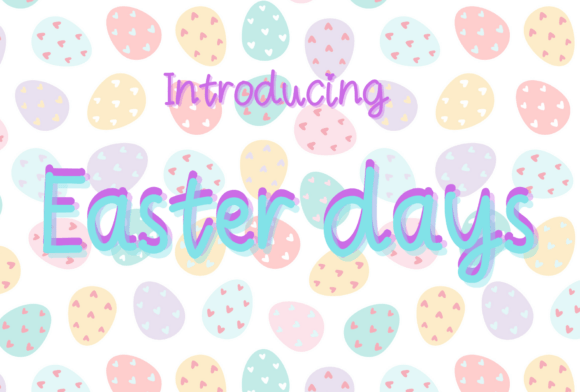
Easter Days Font: The Perfect Handwritten Font for Digital Note-Taking and Design
Easter Days Font is a delightful handwritten font that has gained popularity among designers, bloggers, and digital note-takers. Its versatility and charm make it an ideal choice for various projects, from digital planners and invitations to logos, branding, and decorations. In this article, we’ll explore the features and benefits of Easter Days Font, and how it can add a personal touch to your designs.
What is Easter Days Font?
Easter Days Font is a neat handwritten font designed for digital use. Its clean and elegant lines make it perfect for reading and writing on digital devices, such as iPads and GoodNotes. The font’s style is reminiscent of traditional handwriting, but with a modern twist that makes it suitable for a wide range of applications.
Features of Easter Days Font
- Versatile: Easter Days Font is designed to work seamlessly across various platforms and applications, including Procreate, blog posts, logos, branding, digital planners, invitations, greeting cards, photo albums, and decorations.
- Multi-Language Support: The font supports multiple languages, making it an excellent choice for designers and businesses with a global audience.
- Cute and Personal: Easter Days Font adds a touch of personality to any design, making it perfect for those who want to create unique and engaging content.
- Digital-Friendly: The font is optimized for digital use, ensuring that it looks great on various devices and screens.
Uses of Easter Days Font
Easter Days Font is an incredibly versatile font that can be used in a variety of projects, including:
- Digital Note-Taking: The font is perfect for digital note-taking on iPads and GoodNotes, making it easy to create organized and visually appealing notes.
- Blog Posts: Easter Days Font can add a personal touch to blog posts, making them more engaging and readable.
- Logos and Branding: The font’s unique style makes it an excellent choice for logos and branding, helping businesses stand out from the competition.
- Digital Planners: Easter Days Font is perfect for creating digital planners, journals, and organizers that are both functional and visually appealing.
- Invitations and Greeting Cards: The font’s elegant style makes it suitable for creating invitations, greeting cards, and other paper goods.
- Photo Albums and Decorations: Easter Days Font can add a personal touch to photo albums, decorations, and other creative projects.
Benefits of Using Easter Days Font
Using Easter Days Font offers several benefits, including:
- Unique Style: The font’s unique style sets it apart from other fonts, making it an excellent choice for designers and businesses looking to create distinctive content.
- Improved Readability: Easter Days Font is designed to be easy to read, making it perfect for digital note-taking and reading on various devices.
- Time-Saving: The font’s versatility and compatibility with various applications save designers and businesses time and effort.
Tips for Using Easter Days Font
To get the most out of Easter Days Font, follow these tips:
- Experiment with Sizes: Try different font sizes to find the perfect balance for your design.
- Pair with Other Fonts: Pair Easter Days Font with other fonts to create a unique and visually appealing design.
- Use on Various Devices: Test the font on various devices to ensure it looks great across different platforms.
- Be Creative: Don’t be afraid to experiment and try new things with Easter Days Font.
Easter Days Font is a delightful handwritten font that offers a unique and versatile solution for designers, bloggers, and digital note-takers. Its features, benefits, and uses make it an excellent choice for various projects, from digital planners and invitations to logos, branding, and decorations. With its multi-language support, cute and personal style, and digital-friendly design, Easter Days Font is sure to become a favorite among designers and businesses.
- What is Easter Days Font? Easter Days Font is a neat handwritten font designed for digital use.
- What languages does Easter Days Font support? Easter Days Font supports multiple languages.